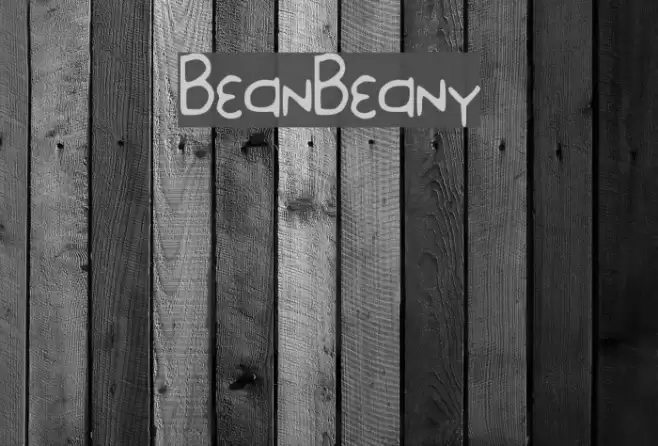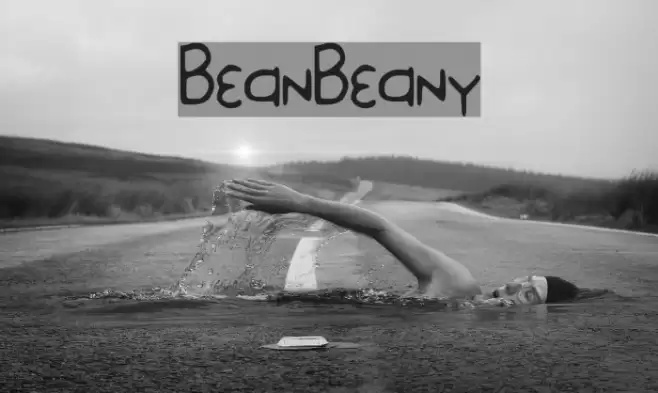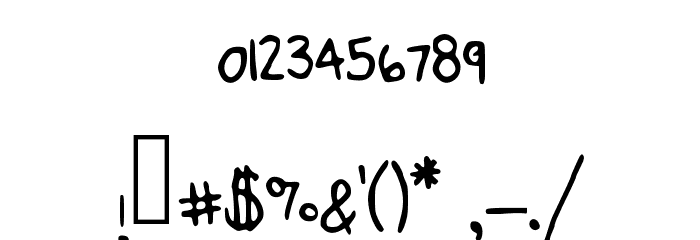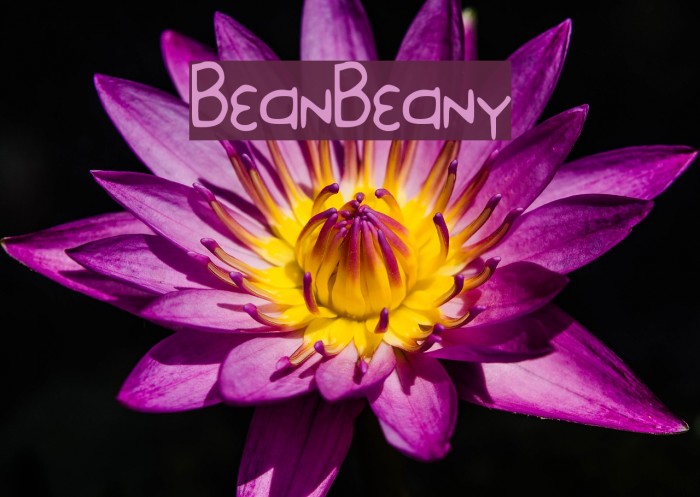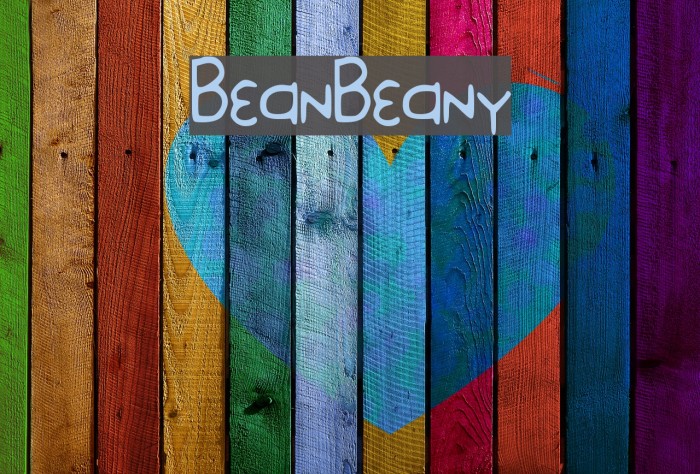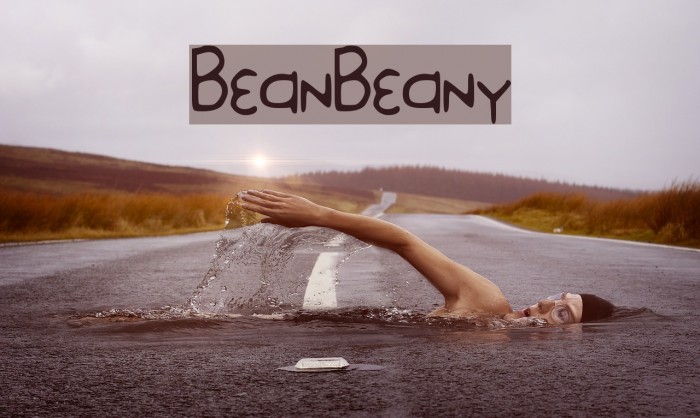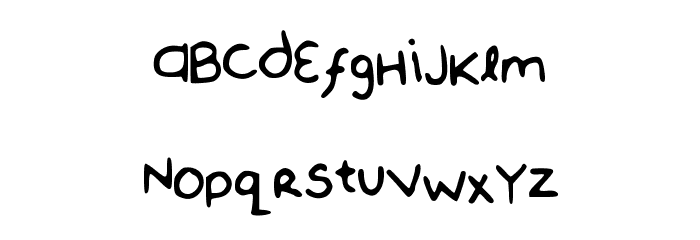
BeanBeany Font
BeanBeany Description
This playful and whimsical font features a hand-drawn style with irregular, organic shapes that give it a friendly and approachable appearance. The characters are slightly uneven, adding to the casual and informal vibe. The strokes are consistent in width, providing a uniform look despite the quirky design. The font includes both uppercase and lowercase letters, numerals, and a variety of special characters, making it versatile for various uses. Its unique style is reminiscent of handwriting, making it ideal for projects that require a personal touch.
A playful, hand-drawn font with a whimsical and friendly appearance from Handwritten fonts.
- Proposed Projects: Ideal for children's books, greeting cards, playful branding, and informal invitations.
- Overall Style: Playful
- Use Case: Headlines, Logos, Informal Text